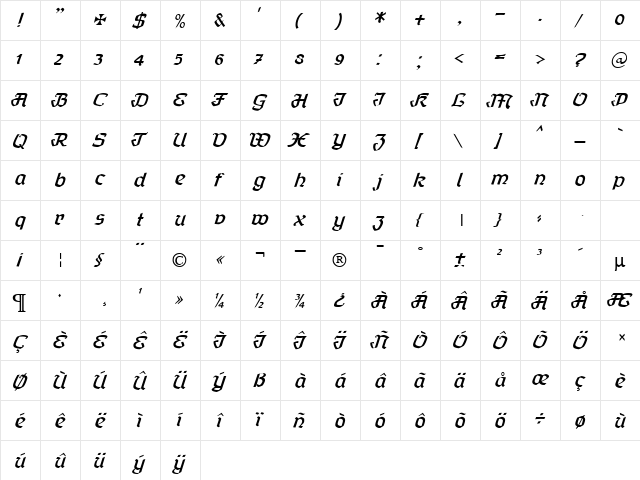
Curfract 51 DB Normal
Design Context for Curfract 51 DB Typeface
Curfract 51 DB is a composed and adaptable typeface that performs quietly and consistently across a wide range of design contexts.